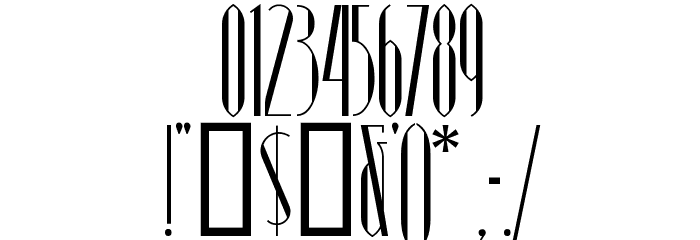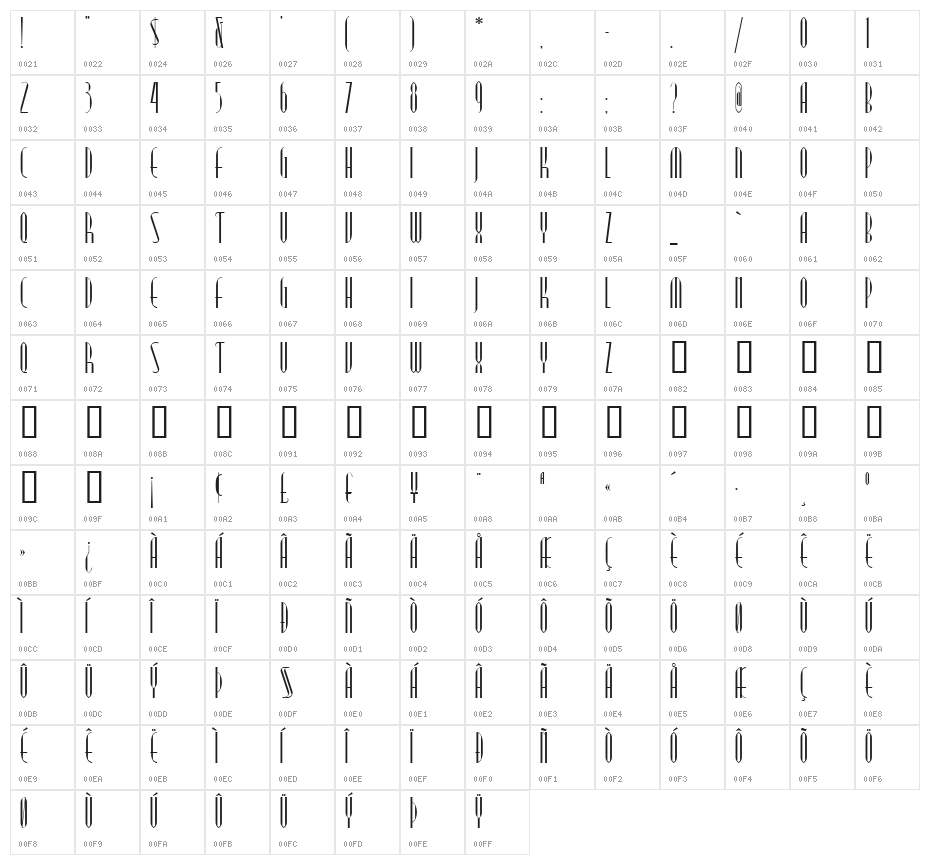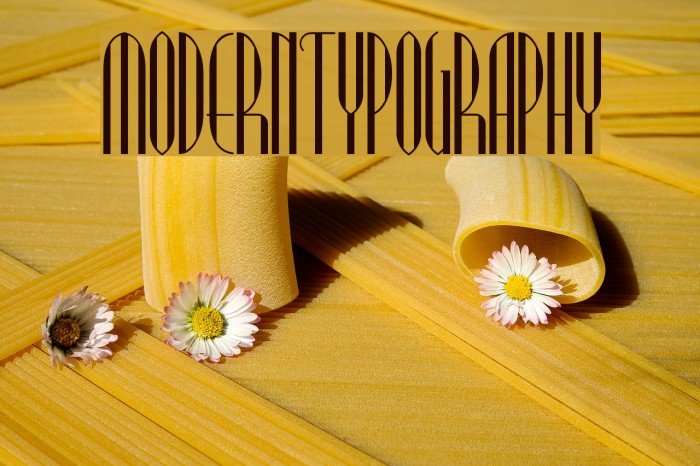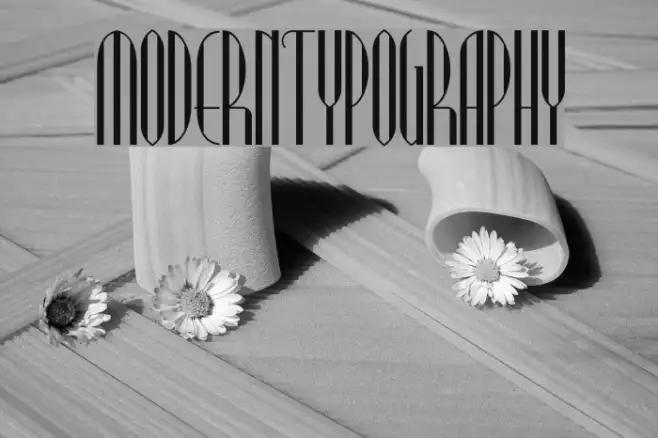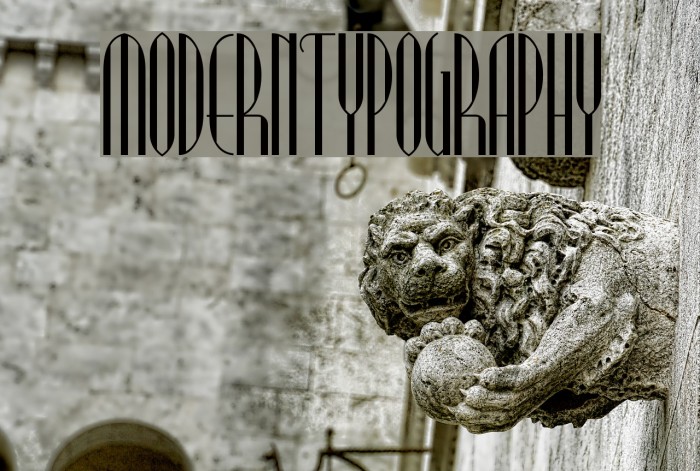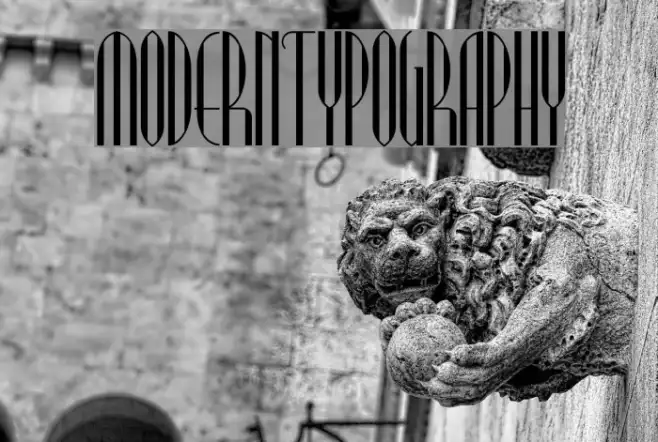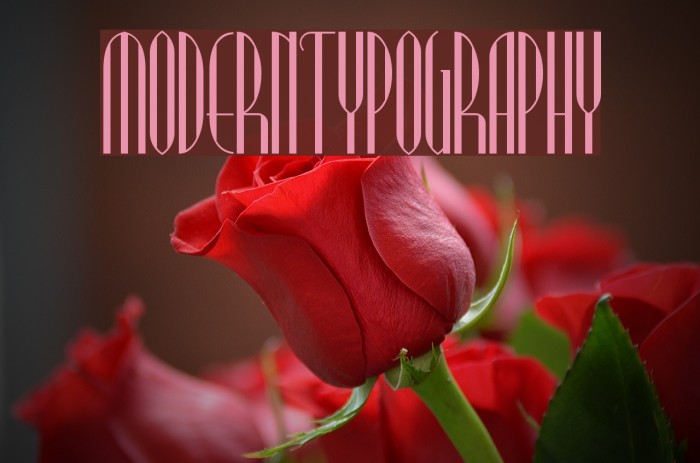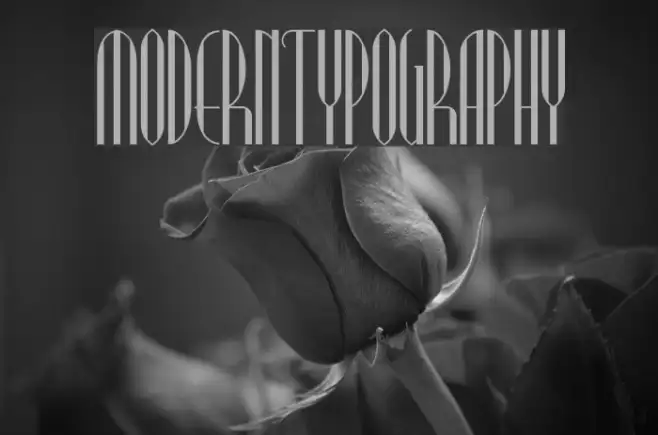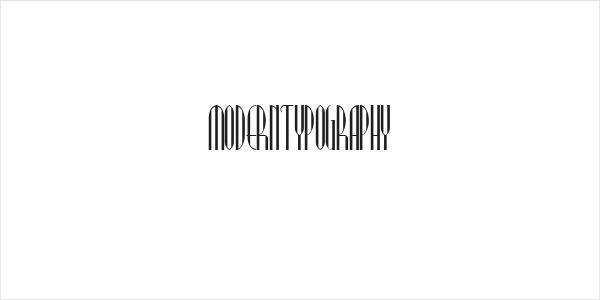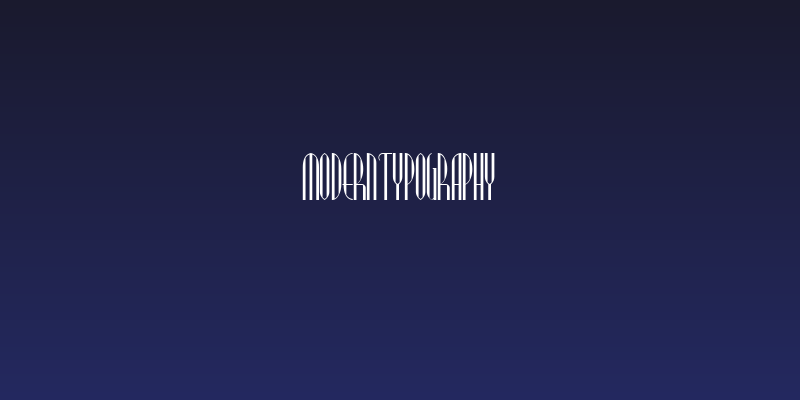
ModernTypography Font
ModernTypography Description
This font exhibits a strikingly modern and elegant design, characterized by its tall and narrow letterforms. The vertical emphasis is pronounced, with elongated strokes that create a sense of height and sophistication. The characters are tightly spaced, contributing to a compact and sleek appearance. The font features high contrast between thick and thin strokes, enhancing its stylish and contemporary feel. It is well-suited for projects that require a bold statement, such as fashion branding, luxury product packaging, or high-end editorial design. The unique style of this typeface makes it ideal for capturing attention and conveying a sense of modernity and elegance.
| Proposed Projects | Fashion branding, luxury packaging, editorial design, high-end invitations. |